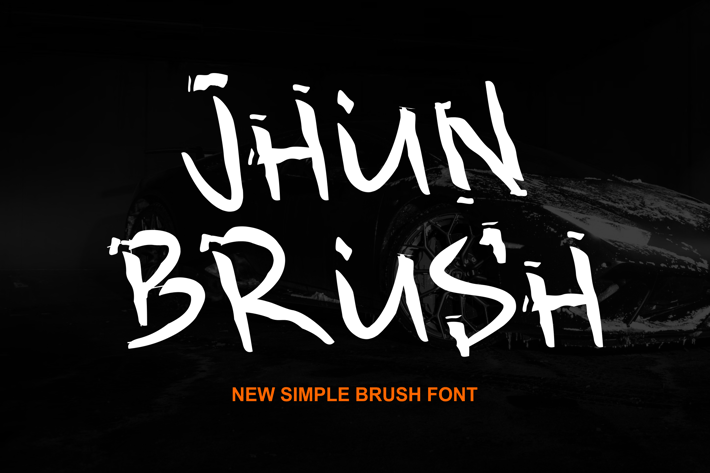
JhunBrush - Font
Introducing our new product JhunBrush - Font Modern Font
JhunBrush - Font - Modern Font is a bold and authentic display font. The font is suitable for any branding project like logo, t-shirt printing, esport, and many more. outstanding in a wide range of contexts.